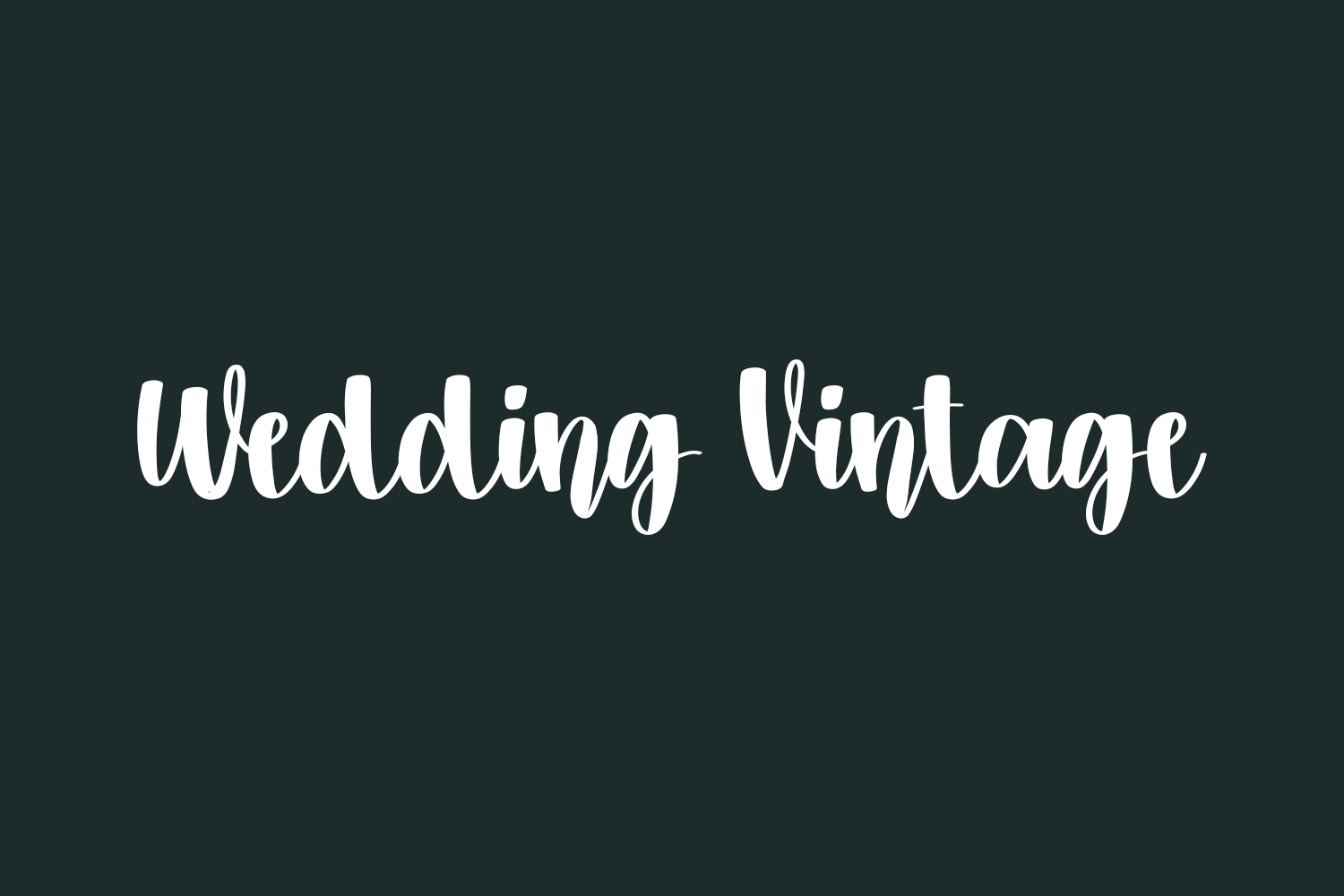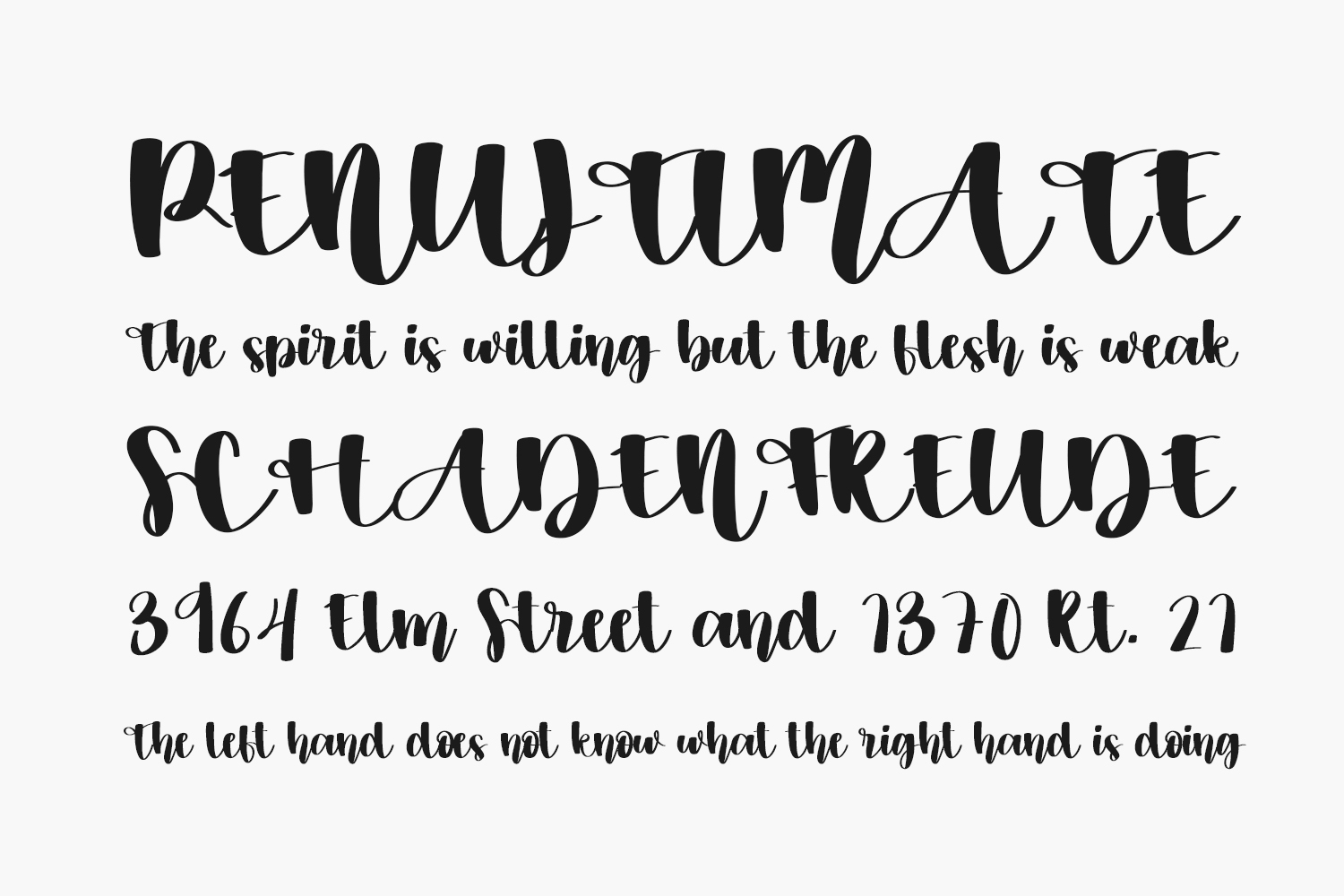
Wedding Vintage Free Font is a romantic and flowing handwritten font, beautifully designed in an elegant style. It would make a wonderful choice for wedding invitations or projects that require a personal note. Wedding Vintage Free Font was designed by Scratchones and is free for personal use only. Please purchase the full version for commercial use.